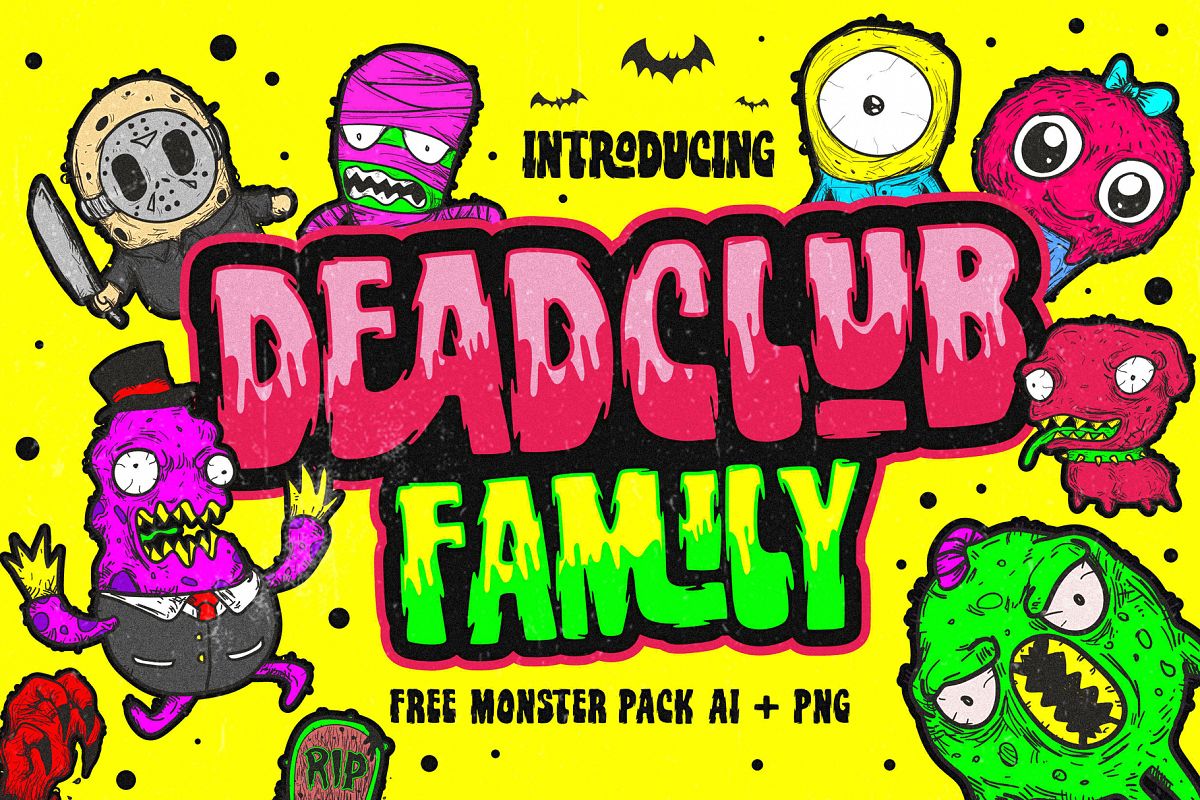
Deadclub Family Outline Slanted
Deadclub Family effect Slanted
Deadclub Family Outline
Deadclub Family Base Slanted
Deadclub Family effect
Deadclub Family Base
Deadclub Familly
Vintage, horror, also can be fun too.
Deadclub is perfect for any horror theme poster, flyer, logo, T shirt etc.Includes: